Leading
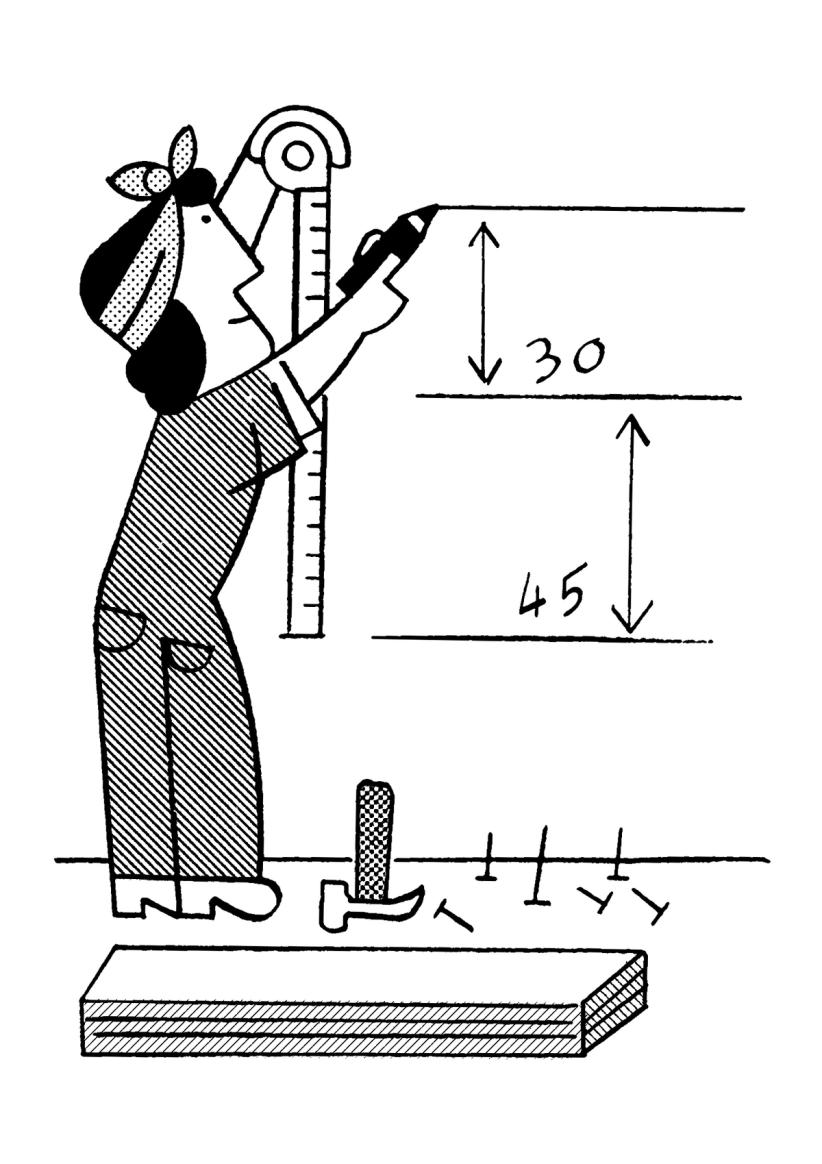
The leading is the amount of space added to increase line spacing (the height of the space between two baselines).
HISTORY
The word refers to the strips of lead used to separate lines of type with in the era of metal-type printing. The line spacing between two lines of 12 pt text set solid was exactly 12 pt. When 2 pt piece of lead was added between those lines, the line spacing value was increased to 14 pt. But the leading value was not 14 pt, instead it was 2 pt.
TODAY
Increasing line-spacing values in InDesign or in CSS isn’t per se leading, it is a line-spacing increase. Although, it is quite common to say “increase the leading” while you are technically increasing the line spacing.
FONT ENGINEERING HINT
The default leading can be controlled through the font’s vertical metrics:
• in the OS/2 table (used primarily by Windows): sTypoAscender, sTypoDescender, sTypoLineGap;
• in the hhea table (used primarily by macOS): Ascender, Descender, LineGap.
These values don’t need to match with the alignment zones (horizontal guidelines for the outlines). There are different strategies for setting them up, but for cross-platform consistency, it’s essential to keep the OS/2 and hhea values aligned.